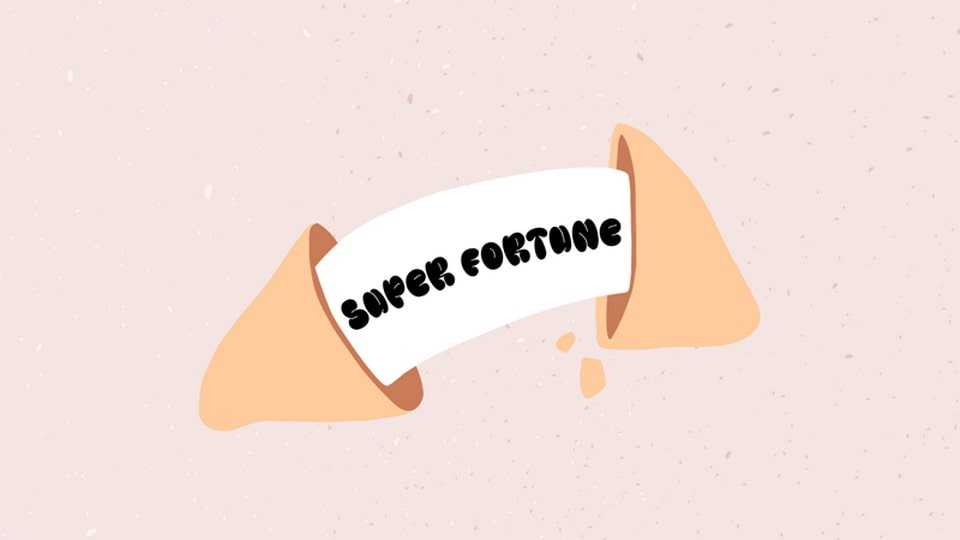
Download Super Fortune font, a quirky and upbeat display typeface designed to bring a smile to your face with its bubbly, tightly-packed letterforms and soft curves.